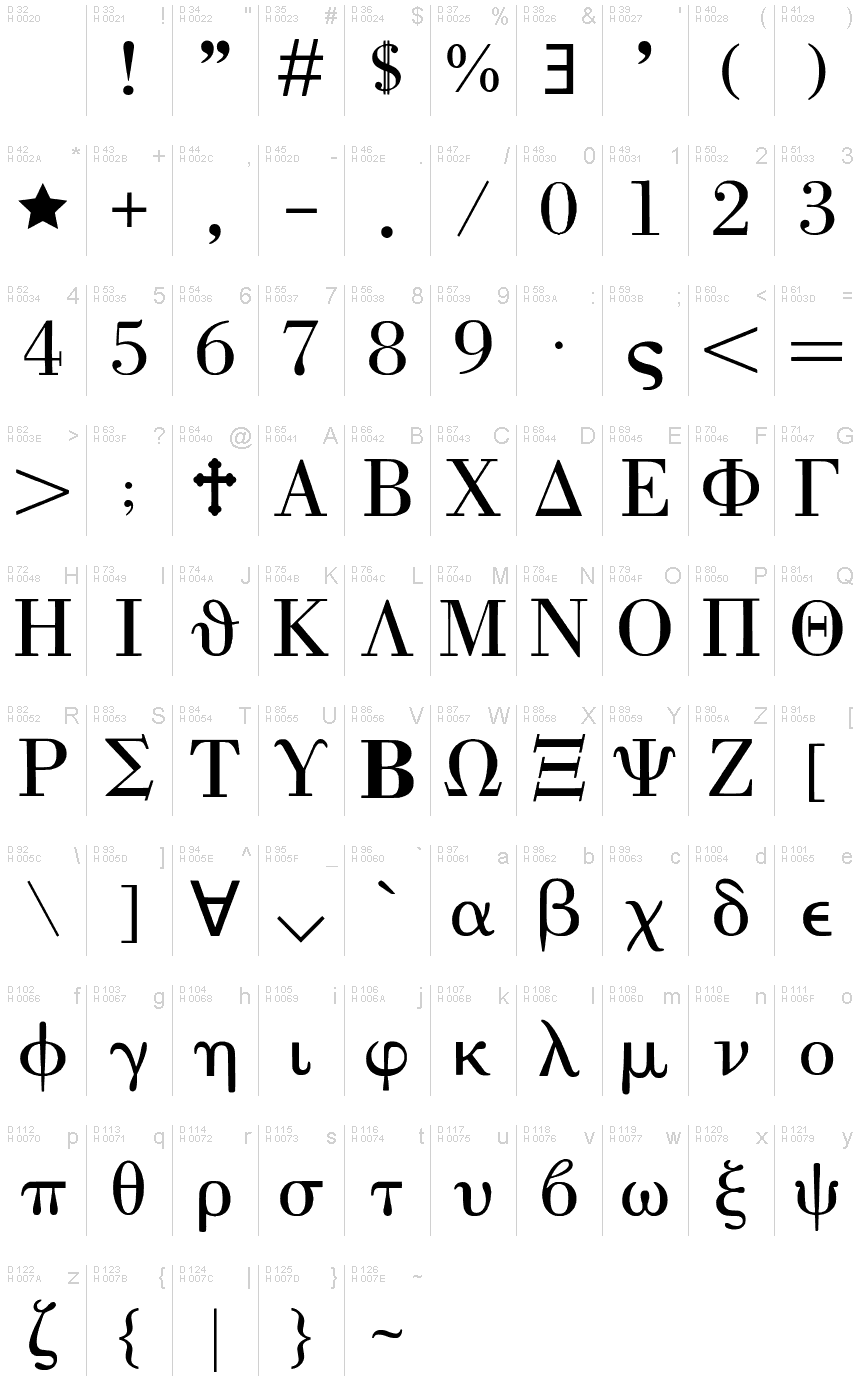
Markbats 11 Regular
Markbats 11 is the eleventh installment of the Markbats font chain, released on May 4, 2021. It is a Greek symbol font. Unlike the other Markbats fonts, Markbats 11 is not considered a dingbat font, since it relies on Greek text. It was inspired by Greek-lettered fonts such as Symbol. It also includes accented Greek letters, which allow for Modern Greek text to be created using the font.
- The Greek letters are mapped into the same Latin letters as in the original Symbol font. The only exception is V, which represents a bold capital Beta in the capital, and a variant of beta in the lowercase.
- The final sigma letter (ς) is represented by the semicolon in the Latin block (;).
- All Greek characters are mapped again in the Greek and Coptic block, with the Greek letters matching their respective characters.
- This font also includes accented Greek letters, which are also re-mapped into the Greek and Coptic block.